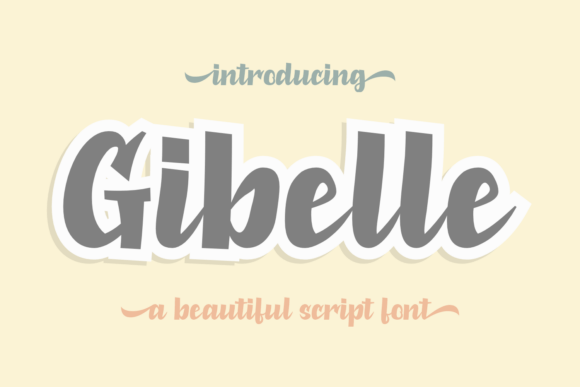
Introducing Gibelle Font: The Perfect Blend of Modern Style and Playfulness
In the world of typography, fonts play a crucial role in conveying the tone and personality of a brand or creative project. With the numerous font options available, it can be challenging to find the perfect one that combines elegance, modernity, and playfulness. However, if you’re looking for a font that checks all these boxes, look no further than the Gibelle Font. In this article, we’ll delve into the features, benefits, and uses of the Gibelle Font, and explore why it’s an excellent choice for your creative projects.
What is Gibelle Font?
Gibelle is a bold script font that boasts elegant, flowing letters. Its design seamlessly blends modern style with a touch of playfulness, making it an ideal choice for a wide range of creative projects. Whether you’re designing an invitation, logo, or any other visual material, Gibelle Font is sure to make a statement.
Key Features of Gibelle Font
- Elegant and Flowing Letters: Gibelle Font features beautifully crafted letters that exude elegance and sophistication.
- Modern Style: The font’s modern design ensures that it looks fresh and contemporary, perfect for brands and projects that want to appear current and trendy.
- Playful Touch: Gibelle Font also has a playful side, making it suitable for projects that require a bit of whimsy and personality.
- Easy to Read: Despite its elegant and flowing design, Gibelle Font is easy to read, ensuring that your message is conveyed clearly and effectively.
Uses of Gibelle Font
Gibelle Font is a versatile font that can be used for a wide range of creative projects, including:
- Invitations: Whether you’re planning a wedding, birthday party, or any other celebration, Gibelle Font is an excellent choice for your invitations.
- Logos: If you’re looking for a font that can help your brand stand out, Gibelle Font is a great option. Its unique blend of modernity and playfulness makes it perfect for logos that require a bit of personality.
- Creative Projects: Gibelle Font can be used for any creative project that requires a font with a bit of elegance and whimsy. Whether you’re designing a brochure, flyer, or social media graphic, Gibelle Font is sure to impress.
Benefits of Using Gibelle Font
There are several benefits to using Gibelle Font for your creative projects. Some of the most significant advantages include:
- Unique and Eye-Catching: Gibelle Font is a unique and eye-catching font that is sure to grab attention. Its elegant and flowing design makes it stand out from more traditional fonts.
- Versatile: Gibelle Font is a versatile font that can be used for a wide range of creative projects. Whether you’re designing a logo, invitation, or social media graphic, Gibelle Font is a great choice.
- Easy to Read: Despite its elegant design, Gibelle Font is easy to read, ensuring that your message is conveyed clearly and effectively.
- Personal Touch: Gibelle Font adds a personal touch to your text, making it perfect for projects that require a bit of personality and whimsy.
Tips for Using Gibelle Font
To get the most out of Gibelle Font, here are a few tips to keep in mind:
- Use it Sparingly: While Gibelle Font is a beautiful font, it’s best to use it sparingly. Use it for headings or titles, and pair it with a more traditional font for body text.
- Experiment with Colors: Gibelle Font looks great in a variety of colors. Experiment with different colors to find the one that works best for your project.
- Pair it with Other Fonts: Gibelle Font can be paired with other fonts to create a unique and eye-catching design. Experiment with different font combinations to find the one that works best for your project.
In conclusion, Gibelle Font is a beautiful and versatile font that is perfect for creative projects that require a bit of elegance and whimsy. Its modern style, playful touch, and easy-to-read design make it an excellent choice for invitations, logos, and any other visual material. By following the tips outlined in this article, you can get the most out of Gibelle Font and create stunning designs that are sure to impress.